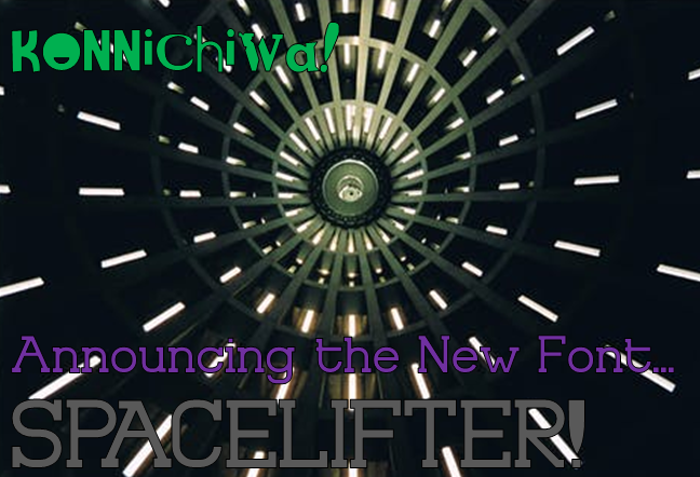
Spacelifter Font
Spacelifter is a ransom note with most of the letters are from the SNES version of Earthworm Jim. Some of them are from the parts of the logos of a company.